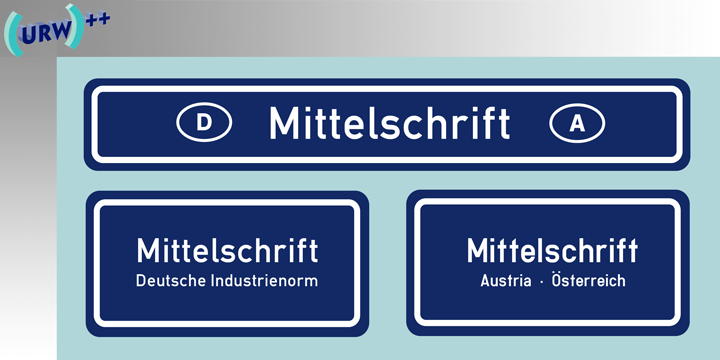
Mittelschrift Austria Font is perfect for Austrian cultural events, European heritage projects, traditional Alpine branding, classical music programs, German-language publications, historic preservation materials, cultural festival posters, and authentic European design applications.
What makes Mittelschrift Austria Font exciting is its authentic Central European character that captures the elegant formality of traditional Austrian and German typography. This distinguished typeface features refined letterforms with classical proportions that evoke the rich cultural heritage of the Habsburg Empire, bringing scholarly sophistication and European authenticity to contemporary design projects requiring historical gravitas.
The Mittelschrift Austria Font family includes regular and bold weights, plus traditional ligatures and Central European character sets that enhance the authentic aesthetic with historical typographic conventions and regional language support.
This prestigious typeface combines European cultural heritage with modern functionality, making Mittelschrift Austria Font Free Download a valuable resource for international cultural and educational projects. The font's distinguished character brings immediate credibility and European sophistication to any design application. Cultural institutions and European organizations particularly appreciate its ability to convey tradition and scholarly authority in their communications. The meticulously crafted letterforms ensure exceptional readability while preserving the dignity of Central European design traditions. Whether you're creating materials for classical music festivals or developing branding for Austrian cultural organizations, this font delivers unmatched European elegance. Creative professionals consistently select this typeface for projects requiring that perfect harmony between Austrian cultural authenticity and contemporary design standards, making it essential for European heritage communications and cross-cultural educational materials.